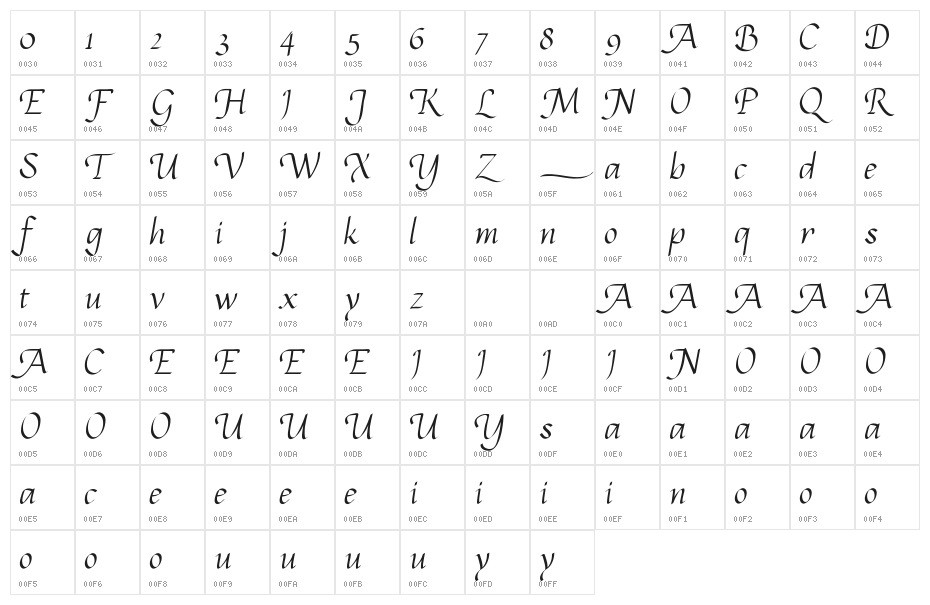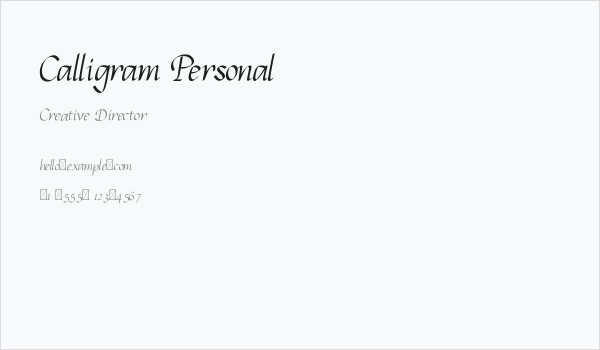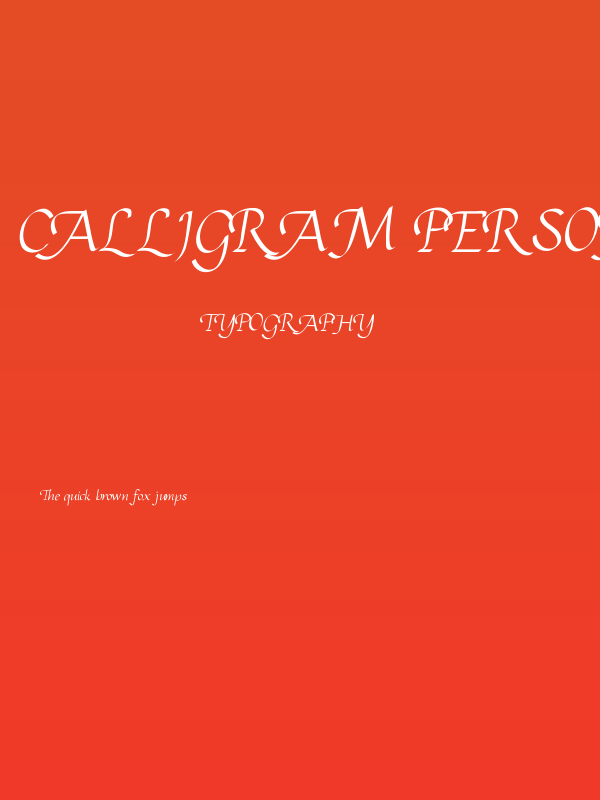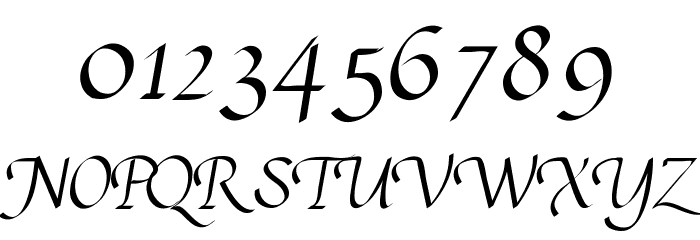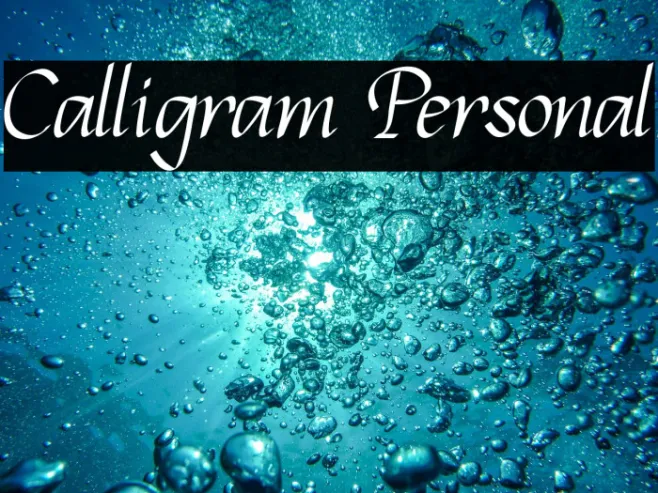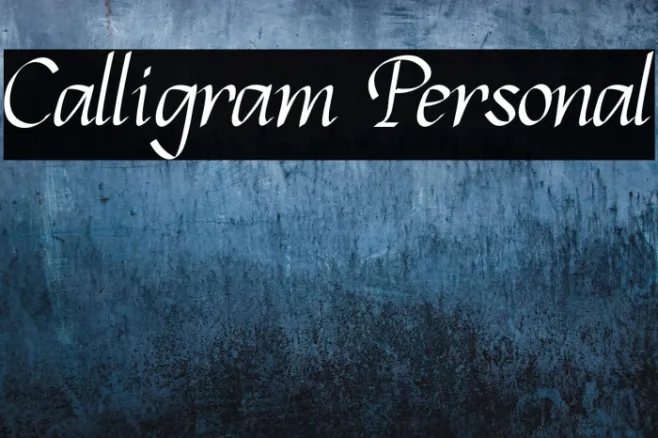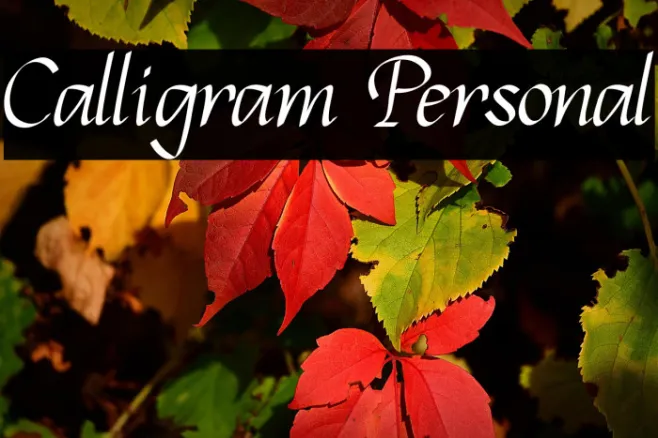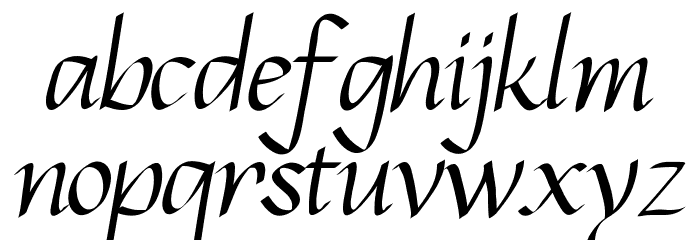
Calligram Personal Font
Calligram Personal Description
This elegant script font features flowing, cursive letterforms that exude a sense of sophistication and grace. The characters are slightly slanted, with smooth, sweeping curves and delicate strokes that create a harmonious and fluid appearance. The uppercase letters are particularly ornate, with flourishes that add a touch of flair, while the lowercase letters maintain a consistent rhythm and balance. The numerals are styled to match the overall aesthetic, with a graceful and refined look. This font is ideal for projects that require a touch of elegance and style.